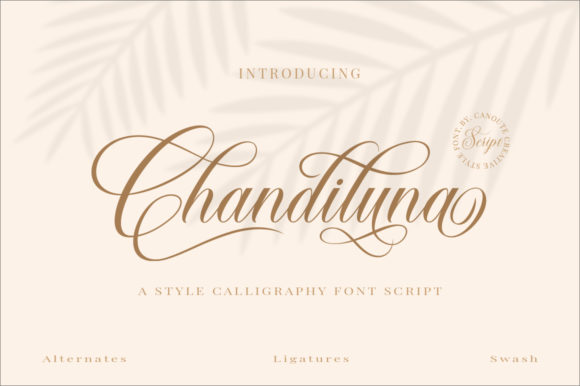
About Chandiluna Font
Chandiluna is a delicate and stilish handwritten font. Add this font to your favorite creative ideas and notice how it makes them come alive!